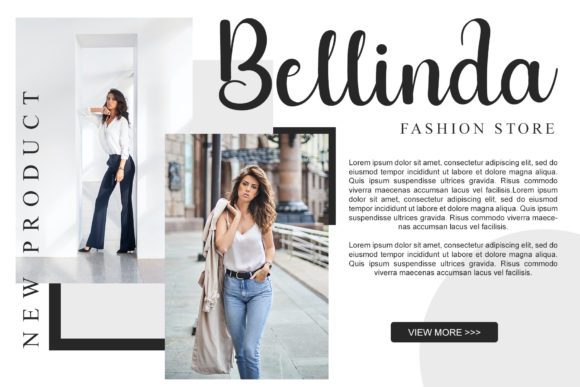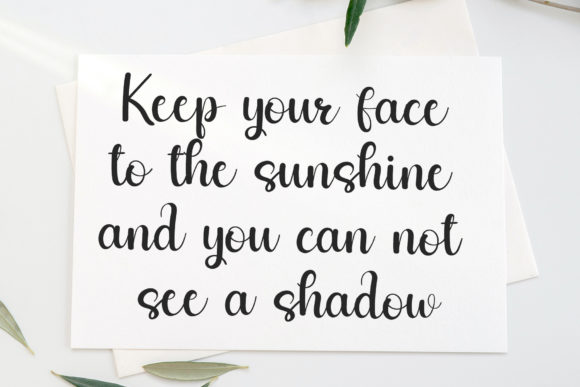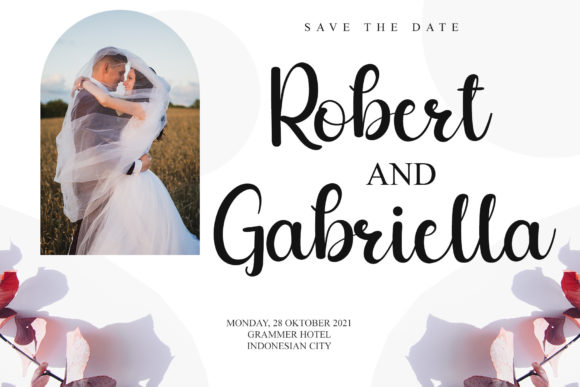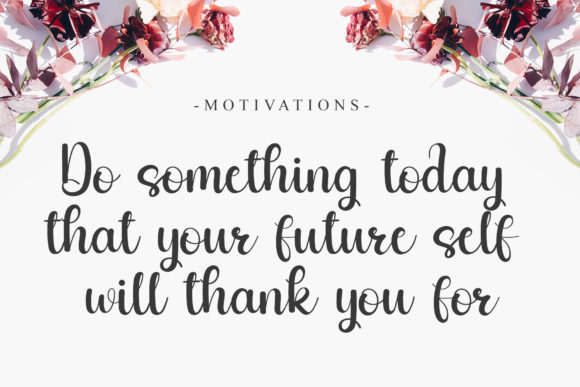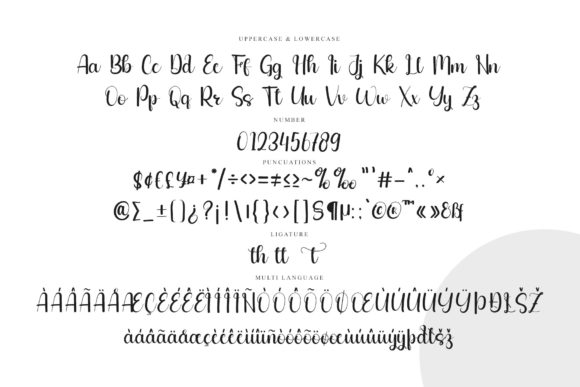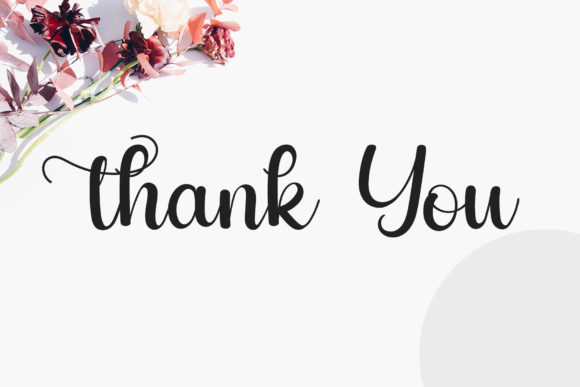
Discover the Elegance of the Girabella Font
As designers, we’ve all been there – staring at a blank canvas, trying to conjure up the perfect font to capture the essence of our vision. It’s a moment of pure creative agony, isn’t it? But what if we told you that we’ve found the perfect solution? Say hello to the Girabella Font, a beautiful and refined script font that exudes class, elegance, and modernity.
This versatile font is perfect for a wide range of applications, from logos and branding to invitations, stationery, and wedding designs. Its sleek and sophisticated design makes it a valuable asset for any designer looking to elevate their work. Whether you’re working on a high-end project or a personal passion project, the Girabella Font is sure to bring a touch of refinement and sophistication to your designs.
Girabella Font Key Features
- Font Family: Girabella Font has a single font family with various styles, including Regular, Italic, Bold, and Bold Italic.
- Character Set: Supports a wide range of languages, including Latin, Greek, and Cyrillic alphabets, making it suitable for global branding and design projects.
- Size: The font size ranges from 8 to 72 points, providing flexibility for use in various design applications, including body text, headings, and titles.
- Resolution: Designed for high-resolution displays, ensuring crisp and clear text rendering on modern screens and devices.
- Unique Characteristics: Girabella Font features a unique, elegant design with refined lines and subtle flair, making it an excellent choice for luxury, high-end, and creative projects.
Girabella Font Review
As a designer, I was excited to dive into the world of Girabella Font. Upon initial impression, I was struck by its whimsical and elegant feel. ✨ The font’s flowing lines and delicate curves evoke a sense of sophistication and playfulness at the same time.
One of the standout features of Girabella Font is its versatility. ✨ It can be used for a wide range of applications, from elegant invitations to modern branding. The font’s legibility is also top-notch, making it perfect for body text and headings alike.
- Whimsical and elegant feel
- Delicate curves and flowing lines
- Perfect for various applications (invitations, branding, body text)
- Legibility is top-notch
- ⚠️ Not ideal for bold or condensed text
Overall, I’m impressed with Girabella Font’s unique character and versatility. While it may have some limitations, it’s a great choice for designers looking to add a touch of elegance and whimsy to their projects.
Tips for Getting the Most Out of Girabella
To get the most out of Girabella, use it in conjunction with other elegant fonts to create a cohesive and sophisticated design. Experiment with different font sizes and styles to add visual interest to your design. You can also use Girabella in combination with graphics and images to create a unique and eye-catching design.
Girabella is commonly used in wedding invitations, event branding, and luxury product packaging. It’s also a popular choice for fashion and beauty branding, as well as high-end business and corporate design.
Alternatives to Girabella Font
Lato is a sans-serif font that is highly legible and versatile. It is ideal for use in body text, headings, and titles. Lato is a popular choice among designers due to its clean and modern aesthetic. Compared to Girabella Font, Lato is more geometric and less ornate, making it a great choice for digital design projects.
Playfair Display is an elegant and luxurious serif font that is perfect for use in high-end branding, packaging, and editorial design. It features intricate details and a classic look that is reminiscent of traditional typography. Unlike Girabella Font, Playfair Display is more formal and sophisticated, making it suitable for use in luxury brands and high-end publications.
Are there any specific font pairing recommendations for Girabella Font?
While Girabella Font is designed to be highly versatile, pairing it with a sans-serif font like Open Sans or Lato can create a harmonious balance between serif and sans-serif typography. However, feel free to experiment with different font pairings to find the perfect combination for your design project.